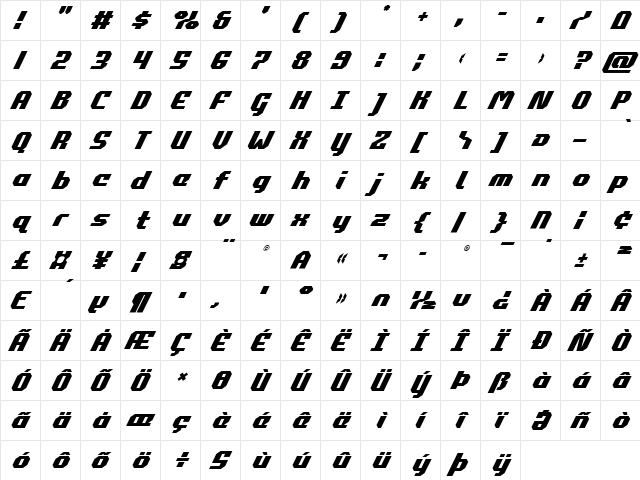
Commonwealth Super-Italic Italic
Design Context for Commonwealth Super-Italic Typeface
Commonwealth Super-Italic is a composed and adaptable typeface that performs quietly and consistently across a wide range of design contexts. The dynamic lean of this cut emphasises speed and emphasis in any layout.
Pro Tip: Try Commonwealth Super-Italic for annotation and caption copy alongside an upright companion — the contrast in angle creates a dynamic but ordered typographic system.